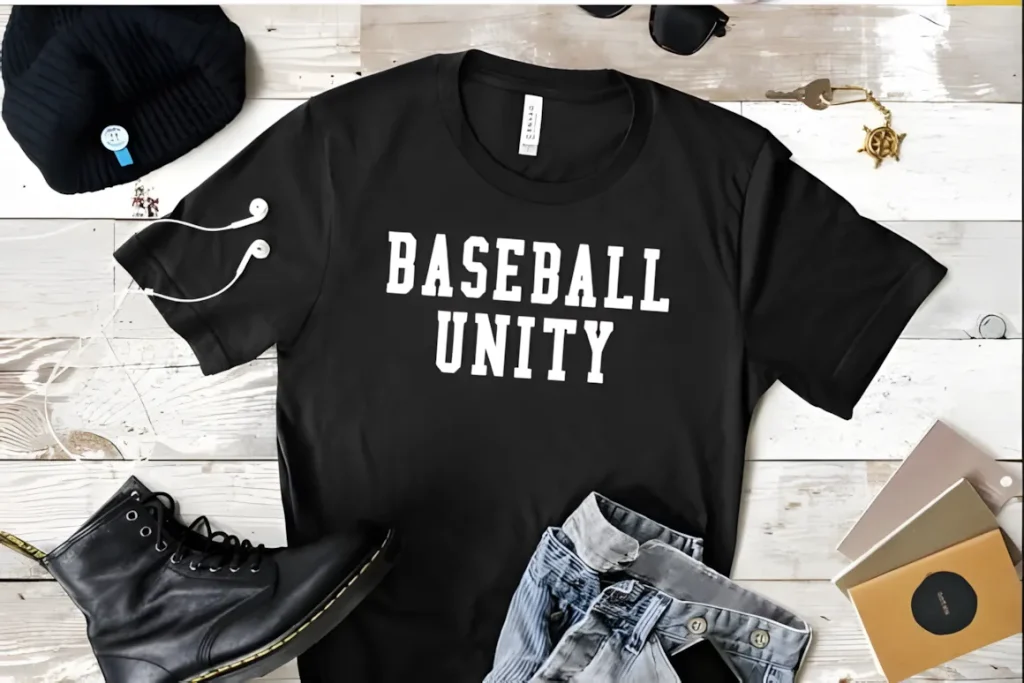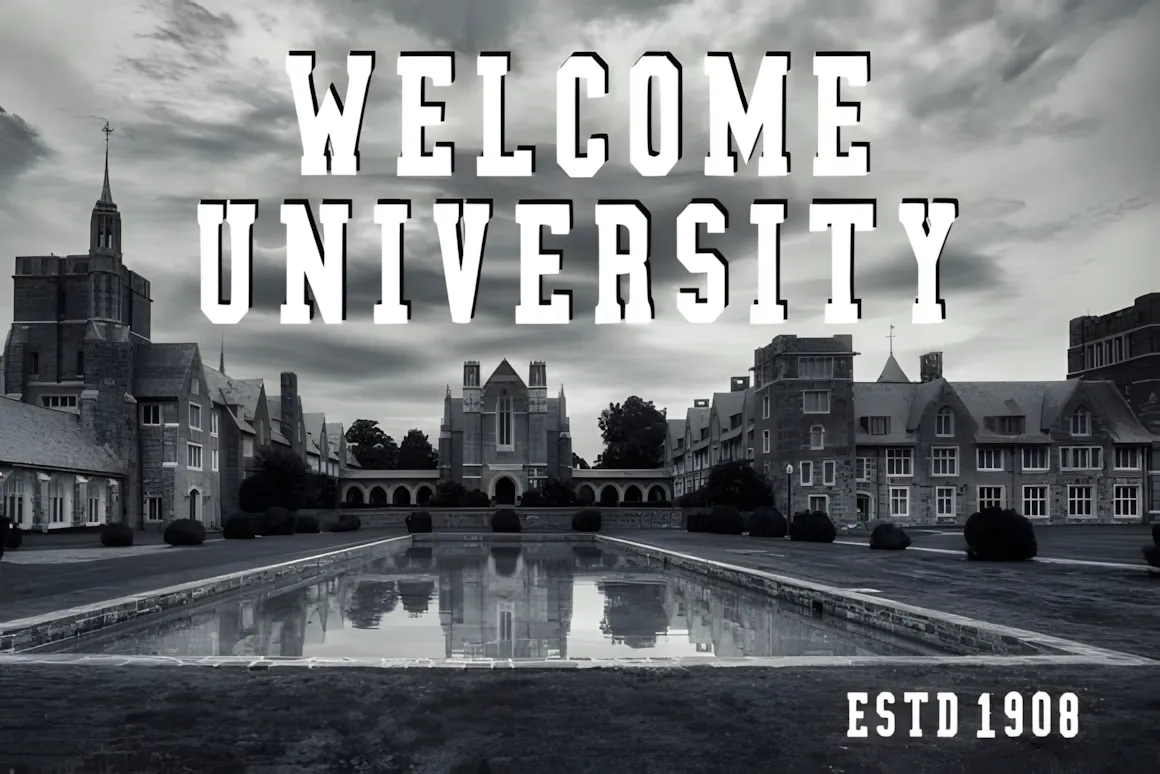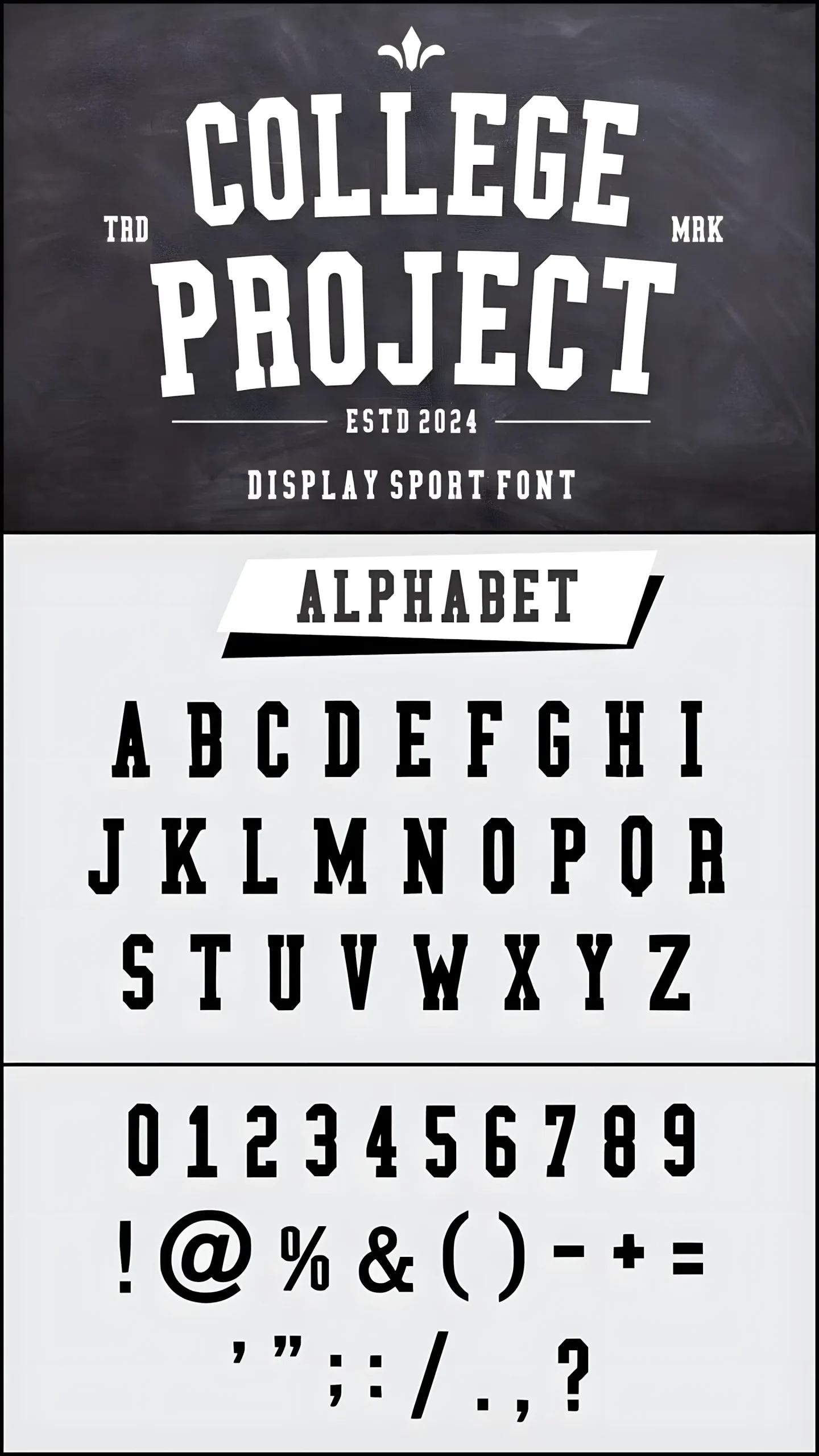
There’s something uniquely nostalgic about the visual language of school years — the crisp flyers announcing board game nights, the bold lettering on club posters, the proud banners for science fairs and graduation celebrations. College Project Font captures that blend of youthful energy and academic character in a way that feels both familiar and fresh.
This decorative typeface breathes life into designs that revolve around school spirit, campus events, scholarly branding, and creative student work — whether printed on posters or presented on digital screens.
A Typeface with a Story
Think back to time spent littered with college flyers stapled in dorm hallways or chalkboard signs rallying students for auditions, meets, or fundraisers. College Project Font taps into that aesthetic without feeling dated. The typeface blends academic inspiration with a touch of playful decor that avoids the clichés of “just school fonts”.
It feels at home in environments where creativity meets structured content — not just school but also community workshops, student portfolios, campus celebrations, and creative project showcases.
Where This Font Really Works
Classroom and Academic Branding
One of the most natural applications for College Project Font is in classroom or academic materials — think event titles, lesson posters, project covers, and classroom signage. Instead of using generic typefaces that blend into the background, this font gives titles a readable yet distinctive identity that feels intentional and lively.
College Organizations and Club Design
Campus life thrives on identity: clubs, societies, teams, and associations all compete visually to attract attention. Whether it’s a film club poster, engineering fair flyer, or debate team banner, this font helps headlines feel confident and memorable.
The mix of decorative style with clear letterforms ensures that college branding doesn’t feel overly whimsical or too rigid. It sits in that sweet spot where serious and creative vibes meet.
Event Promotion and Digital Graphics
From orientation week announcements to semester-end parties, typography plays a huge role in grabbing attention. On event posters and social media graphics, College Project Font gives headlines the visual presence they need to stand out amid a sea of competing content.
Because digital contexts require clarity at small sizes and impact at large sizes, this typeface performs well across platforms — from Instagram story graphics to event pages and digital banners.
Print Projects and Merchandise
College Project Font also shines on tangible materials. Student magazines, creative portfolios, project covers, t-shirts, mugs, notebooks, and other merchandise benefit from typography that reads well but also feels like part of the school culture.
Even beyond school, anyone creating themed print products with an educational or creative tilt will find this font useful.
What Makes College Project Font Special
Not all decorative fonts are created equal. Some are too ornate to be practical; others are too “generic” to carry personality. College Project Font strikes the balance by offering:
- Readable decorative letterforms that don’t sacrifice clarity
- Visual energy that feels youthful without being juvenile
- A style that works in both academic and creative branding contexts
The result? A typeface that feels like it belongs in a creative toolkit for school, community, or personal projects alike.
Getting Creative with the Font
Here are a few real-world scenarios where College Project Font elevates design:
- Welcome Week Posters — Bold headlines that draw eyes across crowded bulletin boards
- Student Portfolios — Naming sections or featured projects with typographic confidence
- Club Socials and Competition Banners — Engaging typography that supports brand identity
- E-mail Headers & Digital Flyers — Distinctive visual presence in crowded inboxes
- Merchandise for Fundraisers — Typography that feels more crafted than generic
These use cases illustrate how the font doesn’t just look decorative — it serves purpose and context in real design ecosystems.
Final Thought
College Project Font isn’t just another decorative display font. It carries the subtle feel of academic energy, campus creativity, and youthful expression — without falling into overused templates or generic styles. Whether you’re a designer building school-oriented branding or a content creator crafting posters and digital graphics, this font gives your words the visual weight they deserve.
It’s a typeface that understands context: bold enough to be noticed, expressive enough to be memorable, and flexible enough to fit into both formal and playful design spaces.